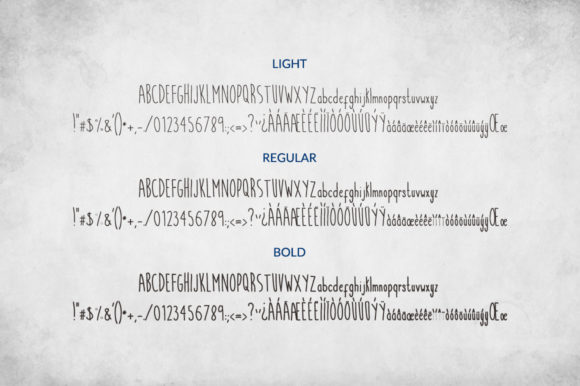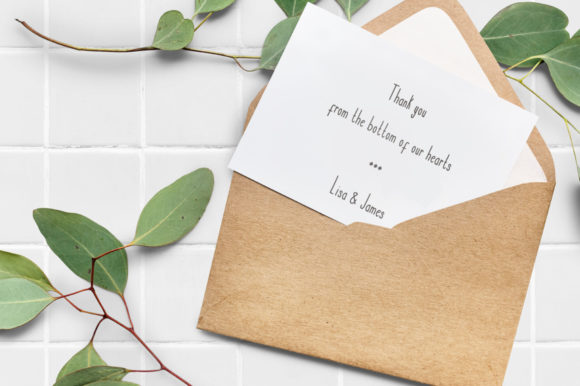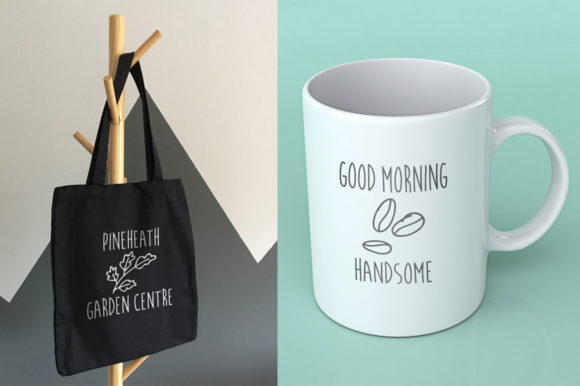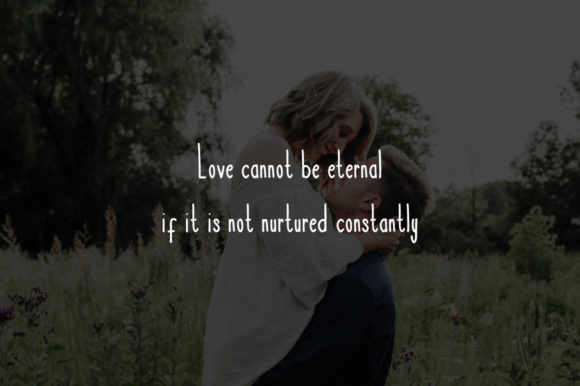
Courtny Family Font: The Perfect Handwritten Font for Your Creative Projects
Are you a designer or crafter looking for a unique and versatile handwritten font to elevate your creative projects? Look no further than the Courtny Family Font! This beautiful font is perfect for a wide range of applications, from stationery and logos to branding and blogs. In this article, we’ll explore the features and benefits of the Courtny Family Font and why it’s a must-have for any creative professional.
A Perfectly Crafted Handwritten Font
The Courtny Family Font is a carefully crafted handwritten font that exudes warmth and personality. Its flowing lines and delicate curves make it perfect for creating beautiful and eye-catching designs that stand out from the crowd. Whether you’re designing a logo, creating a brand identity, or crafting a blog post, the Courtny Family Font is sure to impress.
Versatile and Multi-Purpose
One of the best things about the Courtny Family Font is its versatility. It’s a multi-purpose font that can be used for a wide range of creative projects, including:
- Stationery: Create beautiful greeting cards, invitations, and letters with the Courtny Family Font.
- Logos and branding: Use the Courtny Family Font to create a unique and memorable brand identity.
- Blogs and websites: Add a personal touch to your blog posts and website content with the Courtny Family Font.
- Social media graphics: Create eye-catching social media graphics and posts with the Courtny Family Font.
Three Weights and International Characters
The Courtny Family Font comes with three weights, making it easy to use for a variety of design applications. Whether you need a light and airy font or a bold and statement-making font, the Courtny Family Font has got you covered. Additionally, the font includes international characters, making it perfect for designers and crafters who work with clients from around the world.
So, why should designers and crafters choose the Courtny Family Font for their creative projects? Here are just a few benefits:
- Unique and distinctive: The Courtny Family Font is a unique and distinctive font that will help your designs stand out from the crowd.
- Easy to read: The font is easy to read, making it perfect for body text and longer design projects.
- Flexible: The Courtny Family Font is a flexible font that can be used for a wide range of design applications.
- High-quality: The font is high-quality and professionally designed, ensuring that your designs look professional and polished.
How to Use the Courtny Family Font
- Experiment with different weights: Try out the different weights of the Courtny Family Font to see which one works best for your design project.
- Pair with other fonts: The Courtny Family Font pairs well with other fonts, so don’t be afraid to experiment with different font combinations.
- Use for headlines and body text: The Courtny Family Font is perfect for both headlines and body text, making it a versatile font for a wide range of design applications.